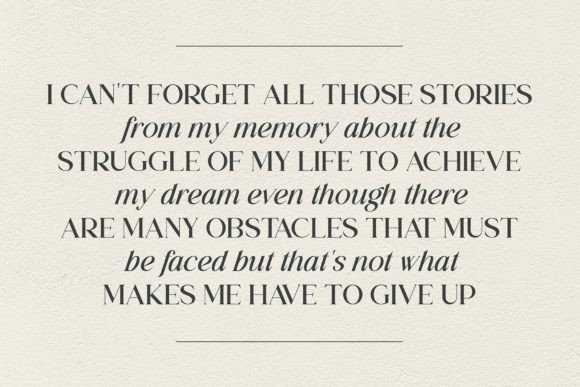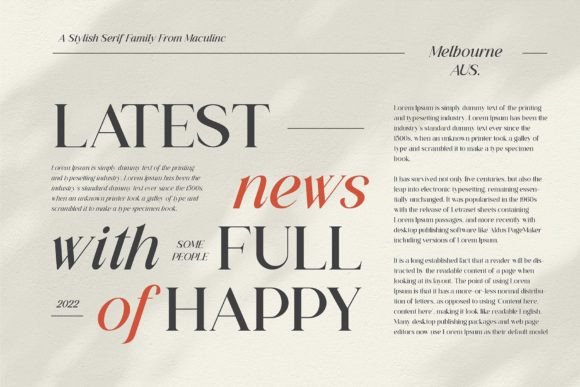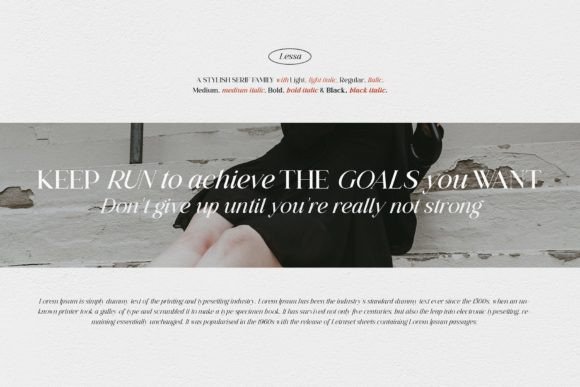
Introduction to Lessa Font
Lessa is an elegant classic serif font family consisting of simple style serif fonts with a vintage look, with appropriate cursive calligraphy italics based on a number of humanist italic scripts, perfect for creating templates, posters, brochures, logos and more.
This font consists of upright and italic fonts (10 in total) all of which have the same number in each letter, Lessa is equipped with multi-languages and is supported by various languages from various countries .